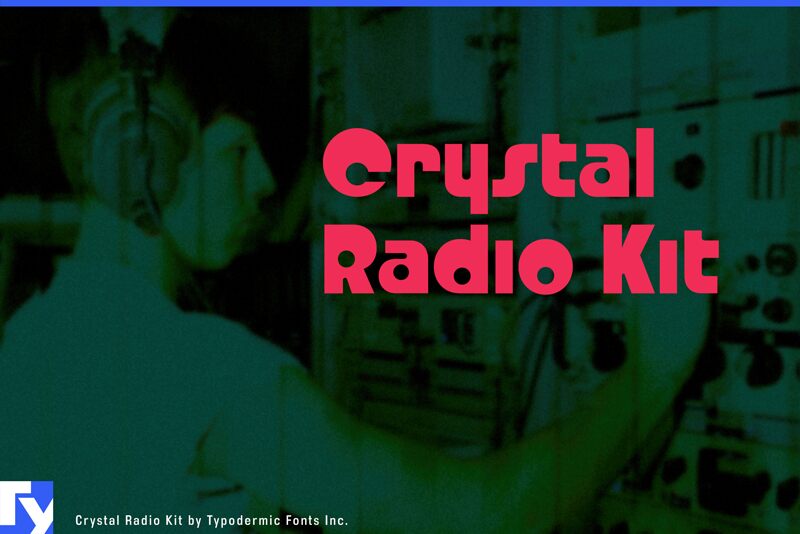
Crystal Radio Kit is a tribute to the typeface famously used for the old Radio Shack logo. Crystal Radio Kit has been updated from the 1998 version with improved vertical metrics for cross-browser web performance. More languages are supported and accents have been redesigned. Spacing and kerning has been improved. More punctuation and math symbols have been added, as well as fractions and numeric ordinals.